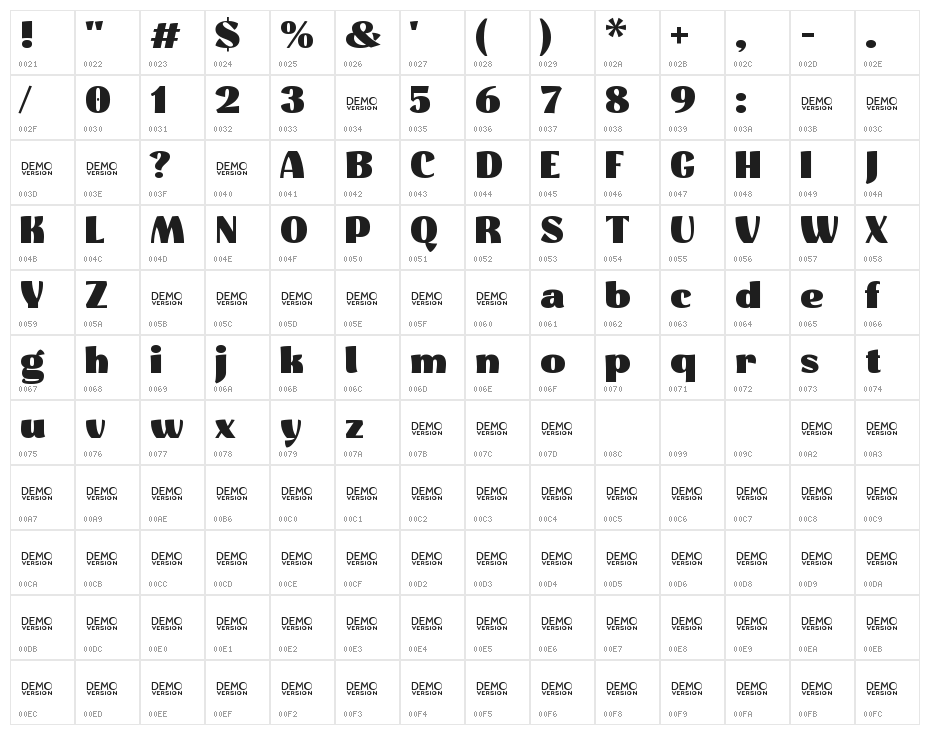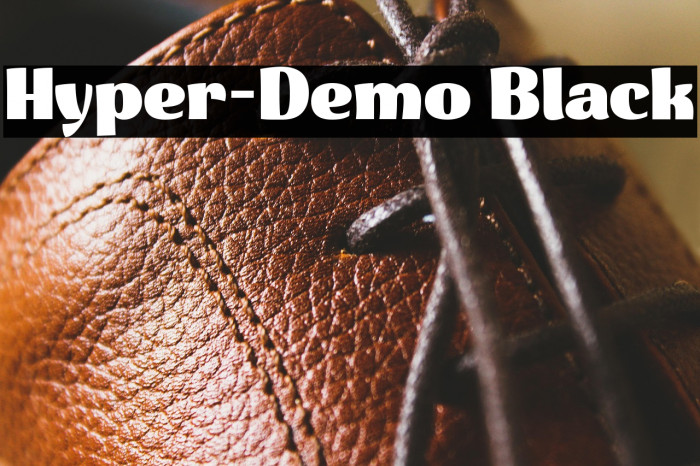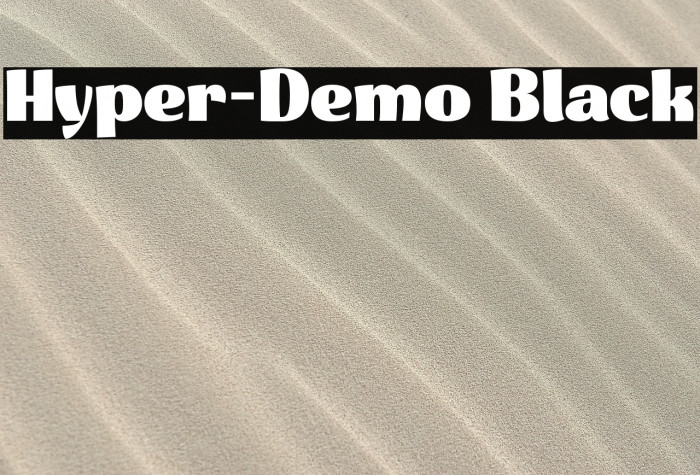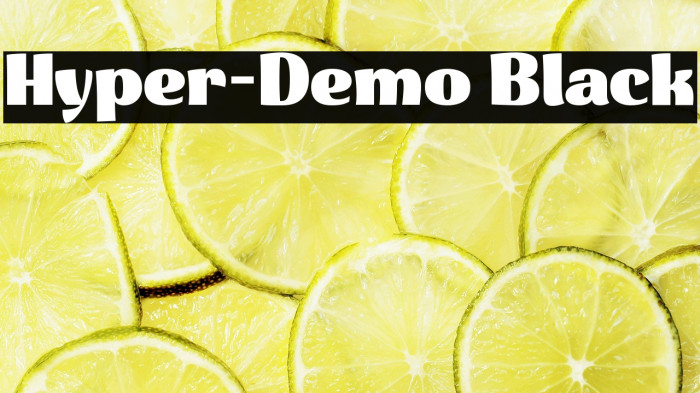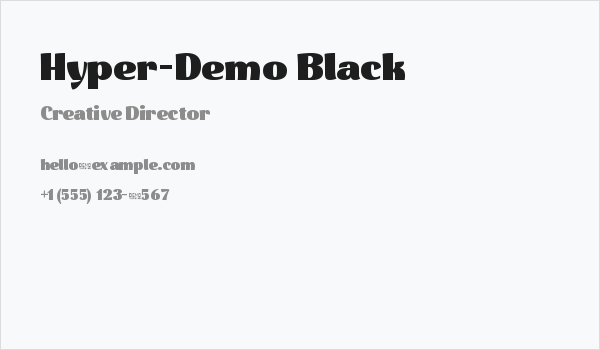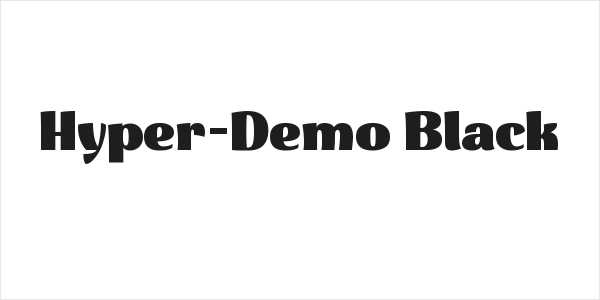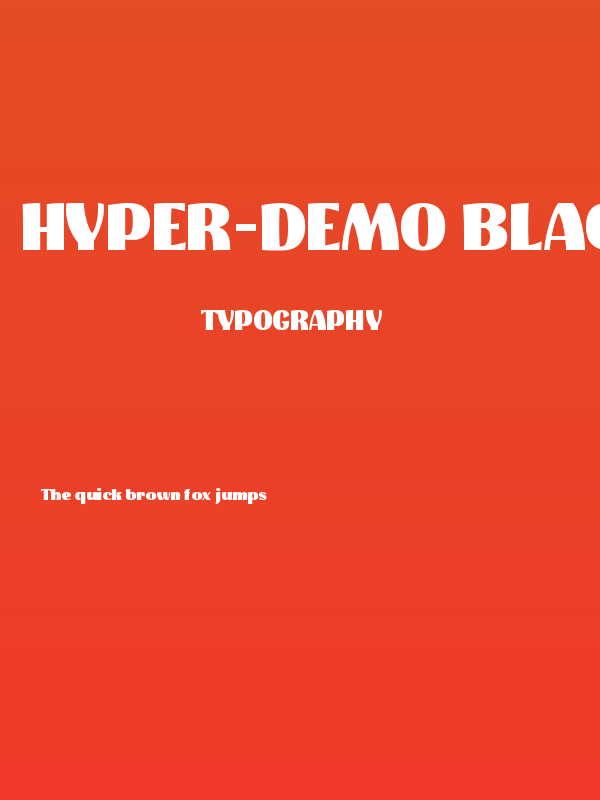
Hyper-Demo Black Font
Hyper-Demo Black Description
This bold and striking font features thick, heavy strokes that create a strong visual impact. The uppercase letters are particularly wide and commanding, with a slight curvature that adds a touch of playfulness to the otherwise robust design. The lowercase letters maintain the boldness, with rounded edges that soften the overall appearance. Numbers are equally bold, ensuring they stand out in any context. The special characters are designed with the same weight and style, making them cohesive with the rest of the font. This font is ideal for making a statement, whether in headlines, posters, or branding materials.